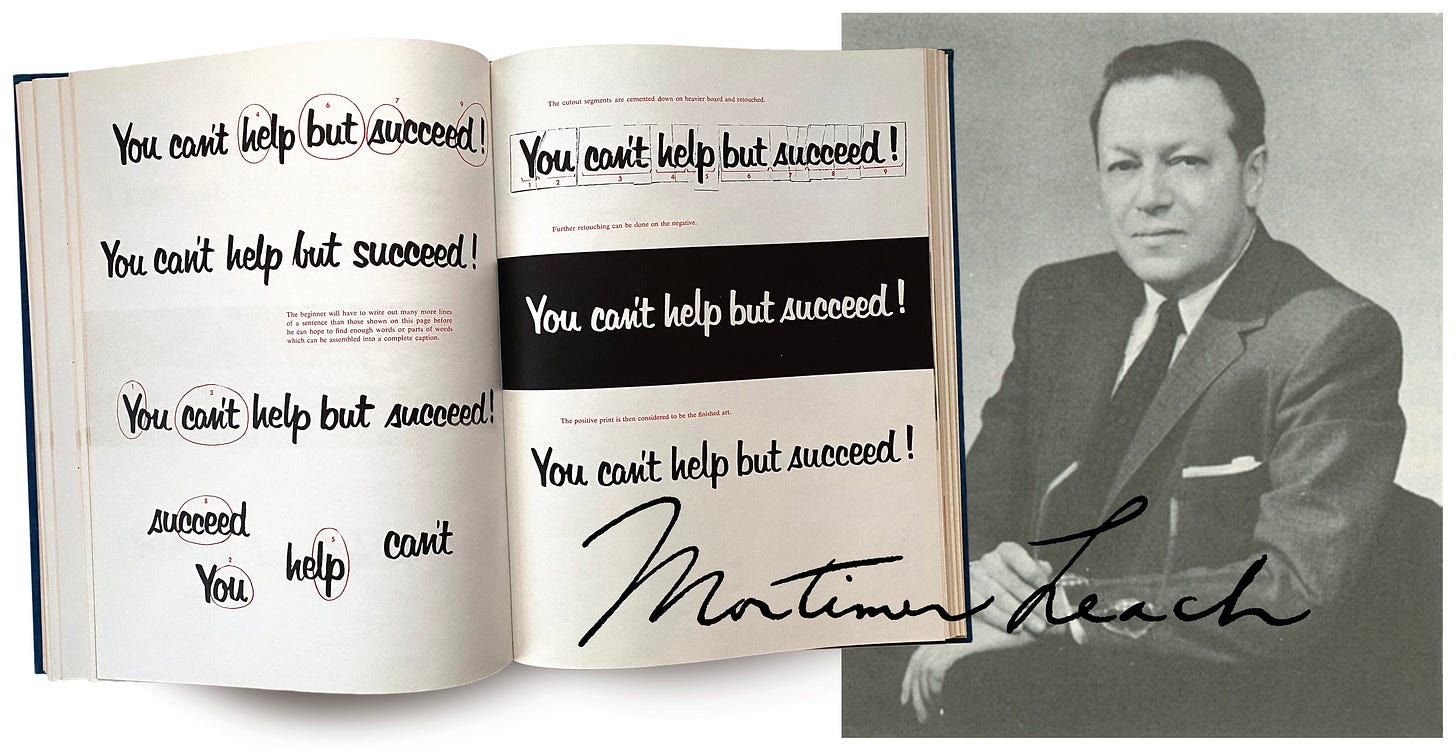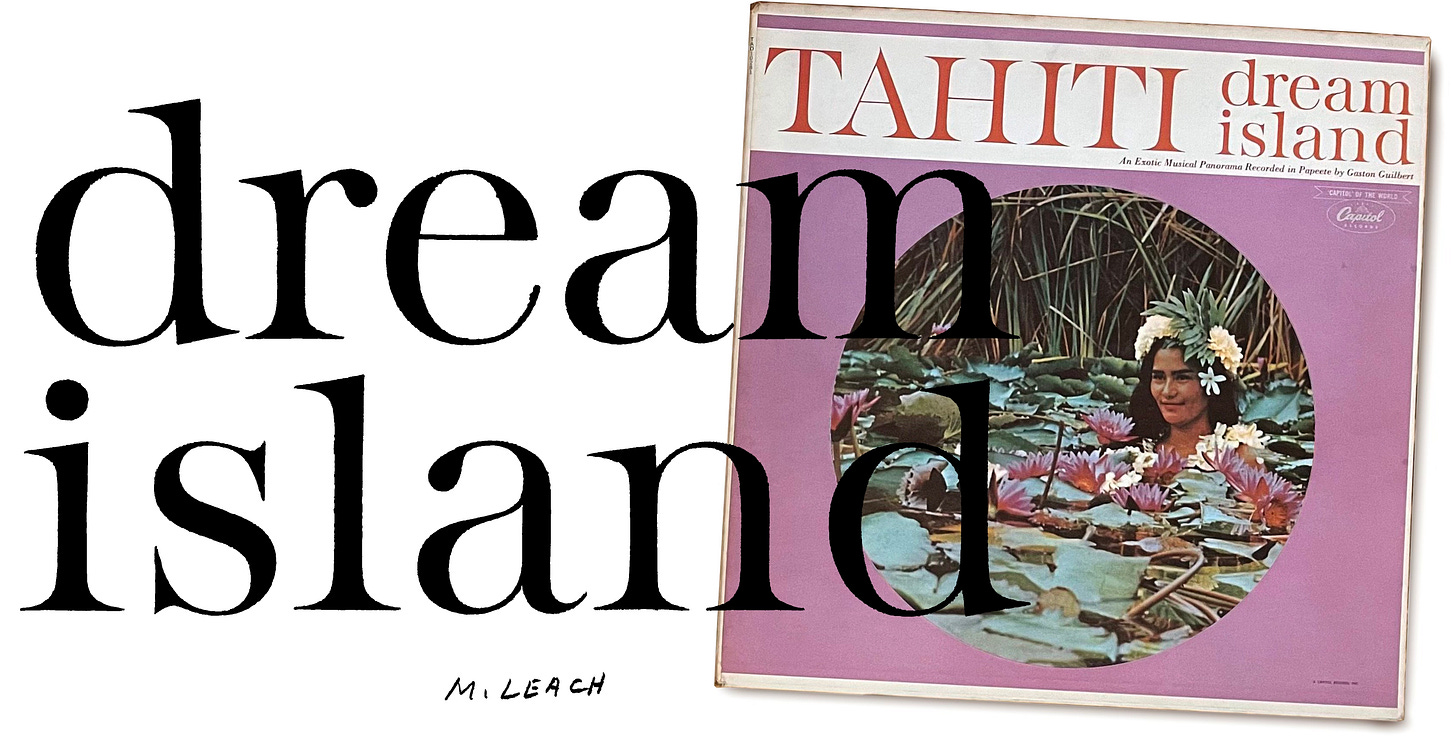
Loads of artists helped shape the development of 20th-century commercial lettering, but few left a mark as far-reaching as Mortimer Leach. One of America’s prominent letterers, Leach hand-drew meticulously styled advertising headlines for national brands like Carnation, Chevrolet, and countless others from the 1930s to the early ‘70s.
From Leach’s landmark instruction book, Lettering for Advertising
His influential textbook, Lettering for Advertising (1956), was one of the first how-to guides to offer detailed, practical instruction on contemporary lettering techniques. In Letter Design in the Graphic Arts (1960), Leach explores methods for interpreting foundational typographic genres as the basis for hand-lettered styles, and showcases the work of other leading professionals.
The artist’s inked lettering and its final application
Leach’s books were informed by his years as an instructor at ArtCenter College of Design in Los Angeles, where he helped launch the careers of other important letterers like Rick Cusick and Doyald Young. Today, Leach’s influence lives on through the work of his students, who passed the torch to an entirely new generation of artists.